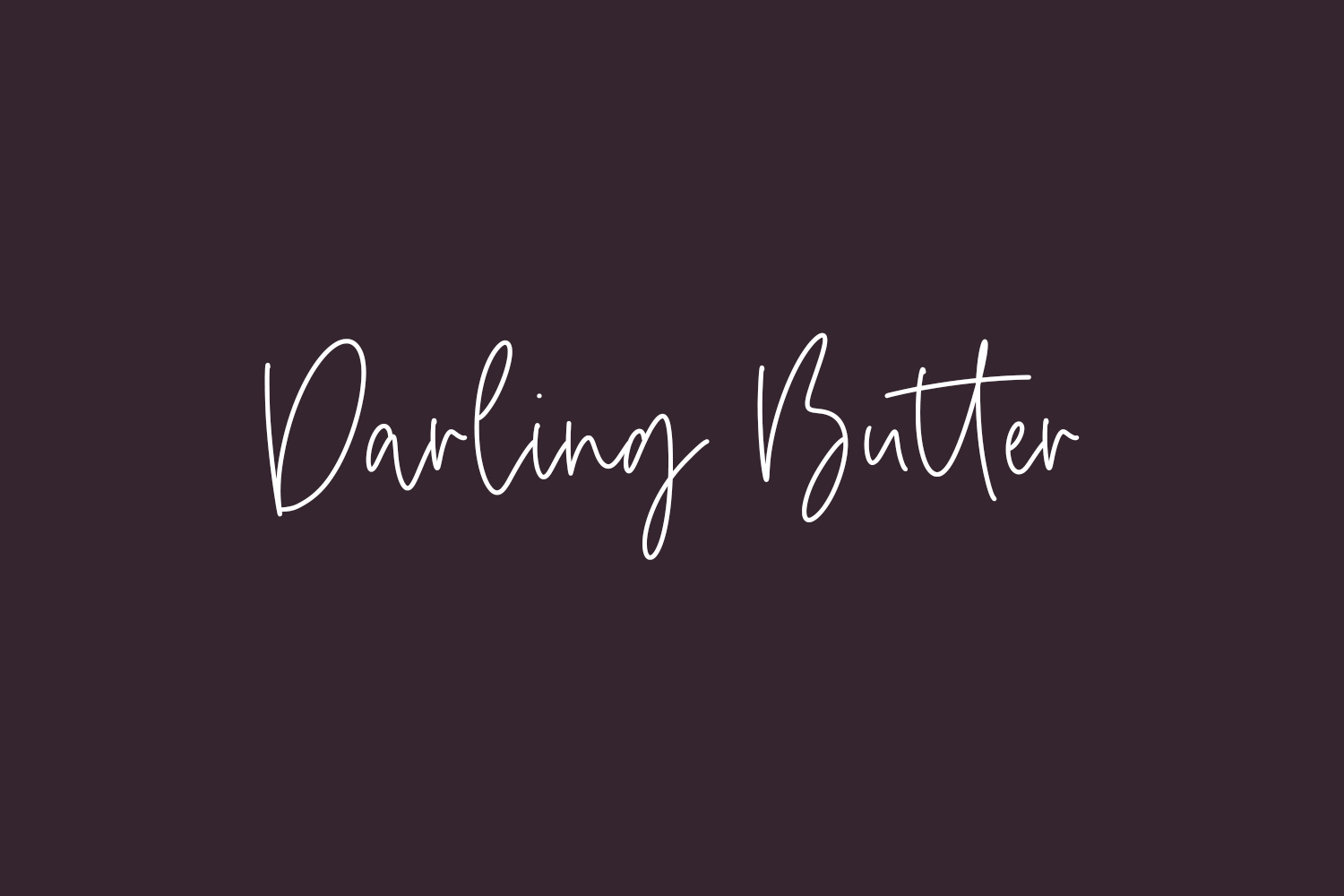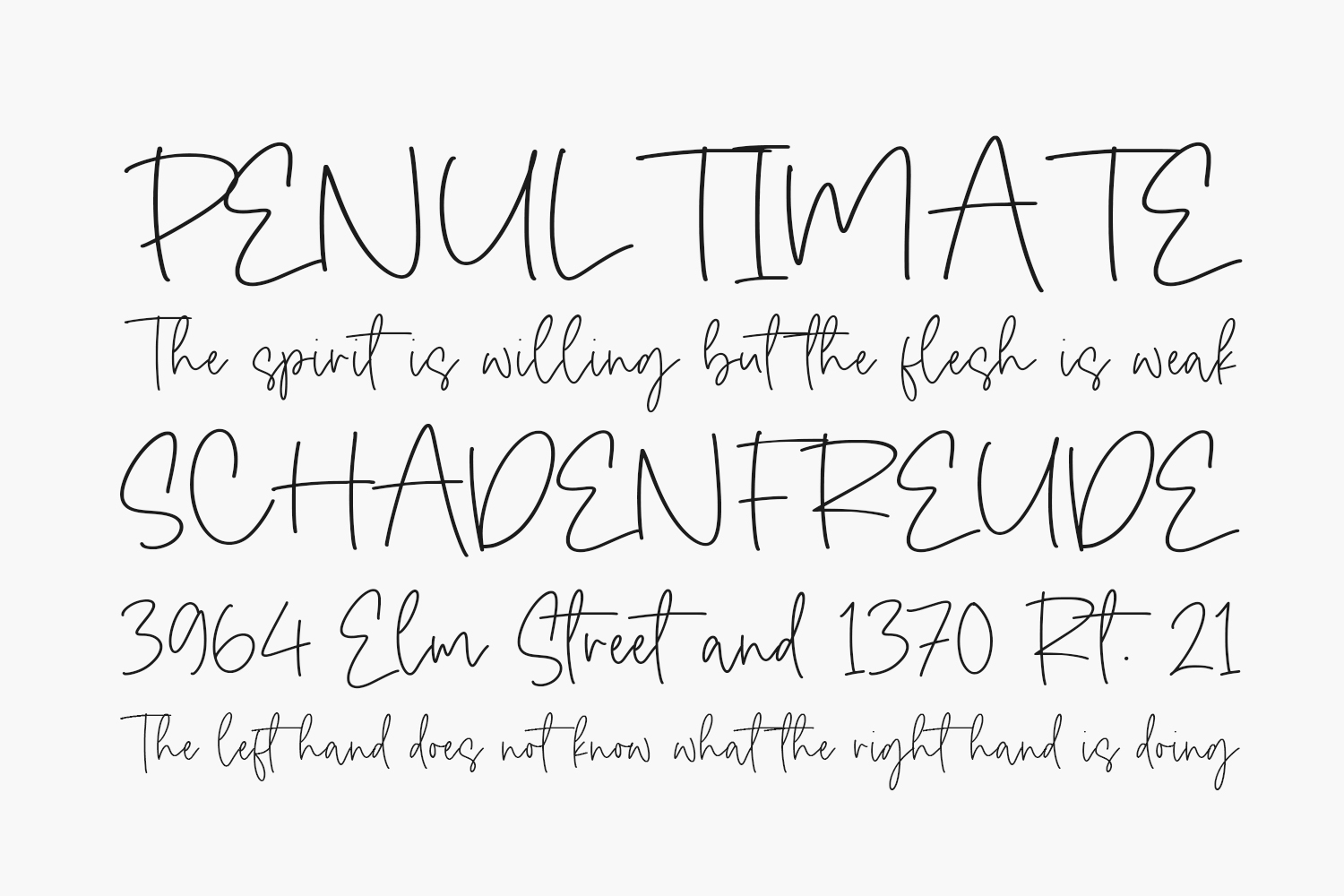
Introducing Darling Butter Free Font, an exquisite script font radiating elegance and sophistication. Expertly designed for creators seeking a charming and rejuvenating touch for their projects. Download the font for free if you need it for personal use or purchase the full version for commercial use.